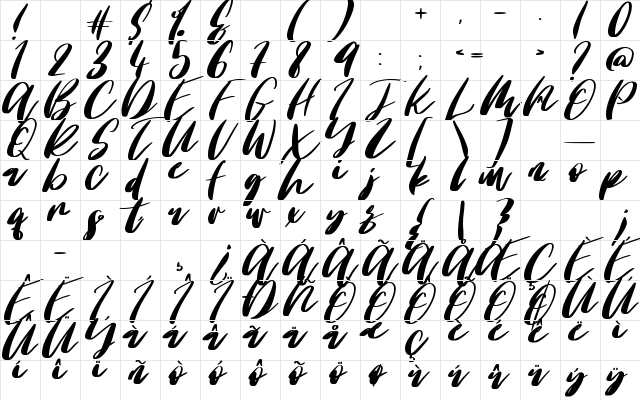
Tyndust Bold Regular
Tyndust Bold Family
Design Context for Tyndust Bold
Tyndust Bold is a composed and adaptable typeface that performs quietly and consistently across a wide range of design contexts. Its bold stroke weight gives it real presence on the page.